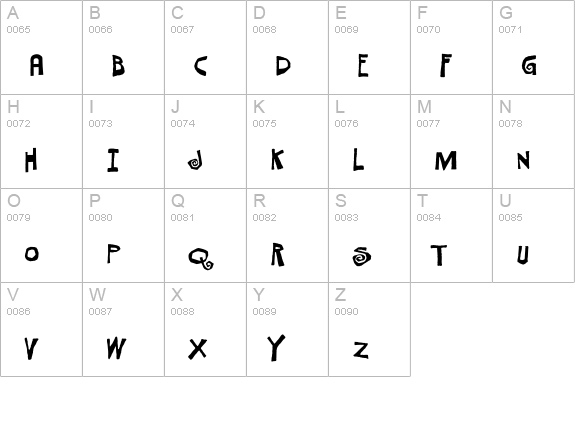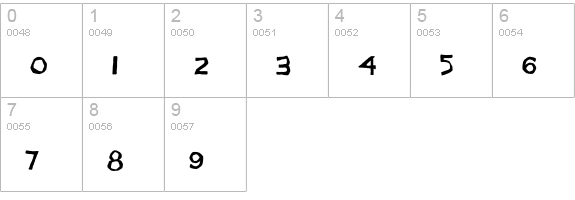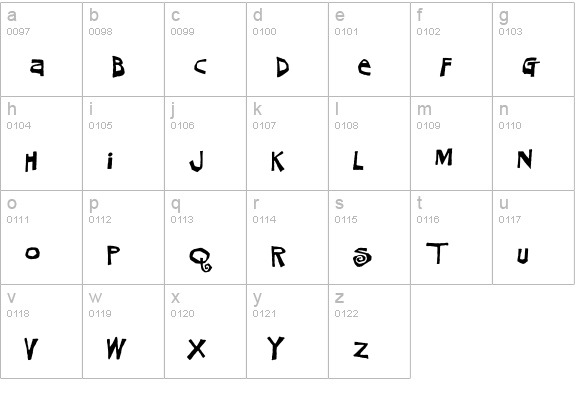
MosquitoFiesta Font Details
MosquitoFiesta font is a whimsical and playful typeface that adds a touch of fun and charm to any design project. With its quirky and unique letterforms, MosquitoFiesta is perfect for adding a bit of personality to invitations, posters, and more. This font is versatile and can be used for a variety of design purposes, making it a great addition to any designer's toolkit. Best of all, MosquitoFiesta is completely free to download at FontsMarket.com, allowing you to add this delightful font to your collection without any cost. Whether you're looking to create a cheerful greeting card or a vibrant poster, MosquitoFiesta is sure to bring a playful touch to your designs.